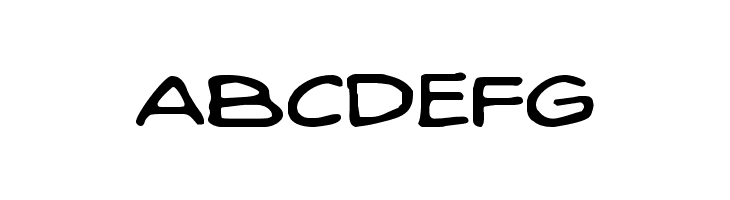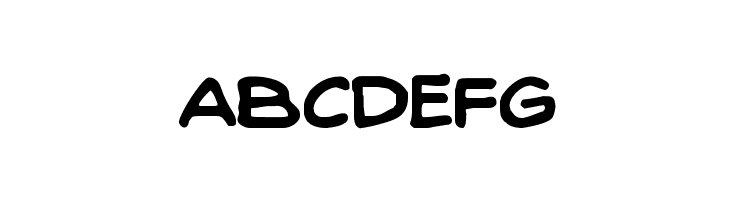
98 Bottles of Beer Font
Font by Iconian Fonts
A playful, hand-drawn font with bold, rounded strokes and a casual style.
98 Bottles of Beer Bold Condensed Font
Font by Iconian Fonts
A bold, condensed, and playful hand-drawn font with rounded characters.
98 Bottles of Beer 3D Font
Font by Iconian Fonts
A playful, 3D cartoon-style font with bold outlines and rounded characters.
98 Bottles of Beer Bold Font
Font by Iconian Fonts
A bold, playful font with a hand-drawn, casual style.
98 Bottles of Beer Bold Condensed Italic Font
Font by Iconian Fonts
A bold, condensed, and italic font with a dynamic and energetic style.
98 Bottles of Beer Condensed Font
Font by Iconian Fonts
A playful, hand-drawn font with bold, rounded strokes and a casual vibe.
98 Bottles of Beer Rotatalic Font
Font by Iconian Fonts
A bold, italicized font with a dynamic, handwritten style.
98 Bottles of Beer Rotated Font
Font by Iconian Fonts
A playful, handwritten font with bold, rounded strokes and a casual style.
98 Bottles of Beer Bold Italic Font
Font by Iconian Fonts
A bold, italic font with a playful and dynamic style.
98 Bottles of Beer Expanded Font
Font by Iconian Fonts
A playful, handwritten-style font with bold, rounded strokes.
98 Bottles of Beer Condensed Italic Font
Font by Iconian Fonts
A bold, condensed italic font with a dynamic and energetic style.
98 Bottles of Beer 3D Italic Font
Font by Iconian Fonts
A bold, 3D italic font with outlined characters and a playful, dynamic style.
98 Bottles of Beer Leftalic Font
Font by Iconian Fonts
A playful, handwritten font with uneven strokes and a casual style.
98 Bottles of Beer Expanded Italic Font
Font by Iconian Fonts
A playful, handwritten-style font with bold, italicized characters and expanded spacing.
98 Bottles of Beer Italic Font
Font by Iconian Fonts
A bold, italicized handwritten font with a playful and dynamic style.